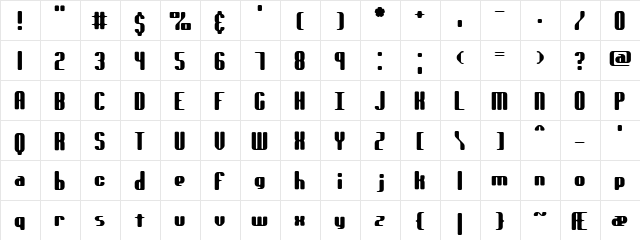
genotype RS (BRK) Normal
Design Context for genotype RS (BRK) Typeface
genotype RS (BRK) is a composed and adaptable typeface that performs quietly and consistently across a wide range of design contexts.